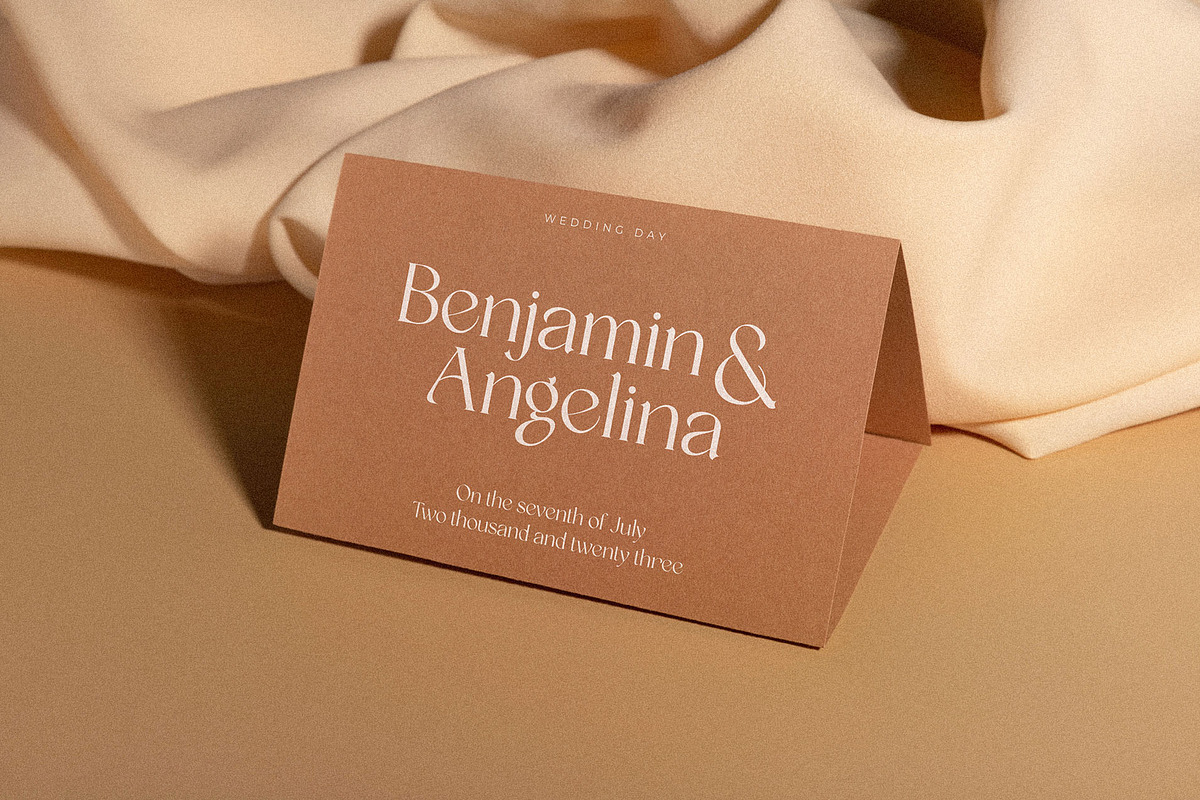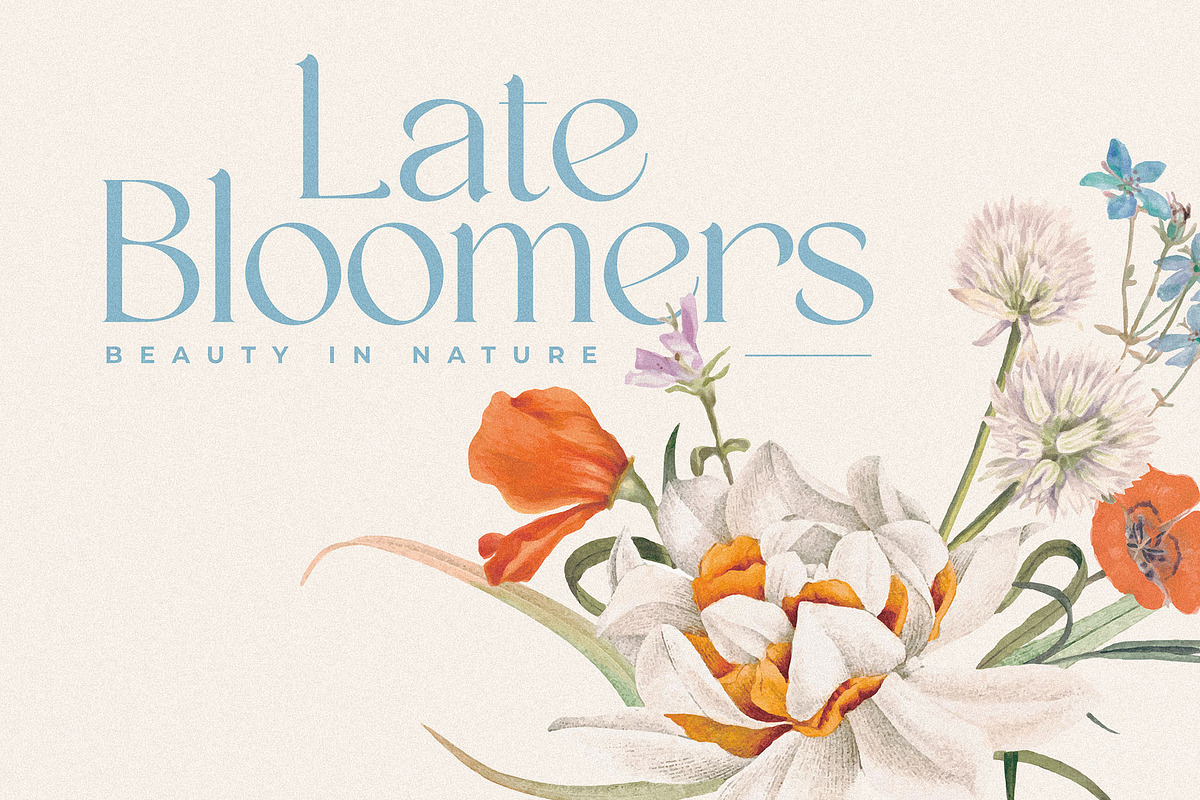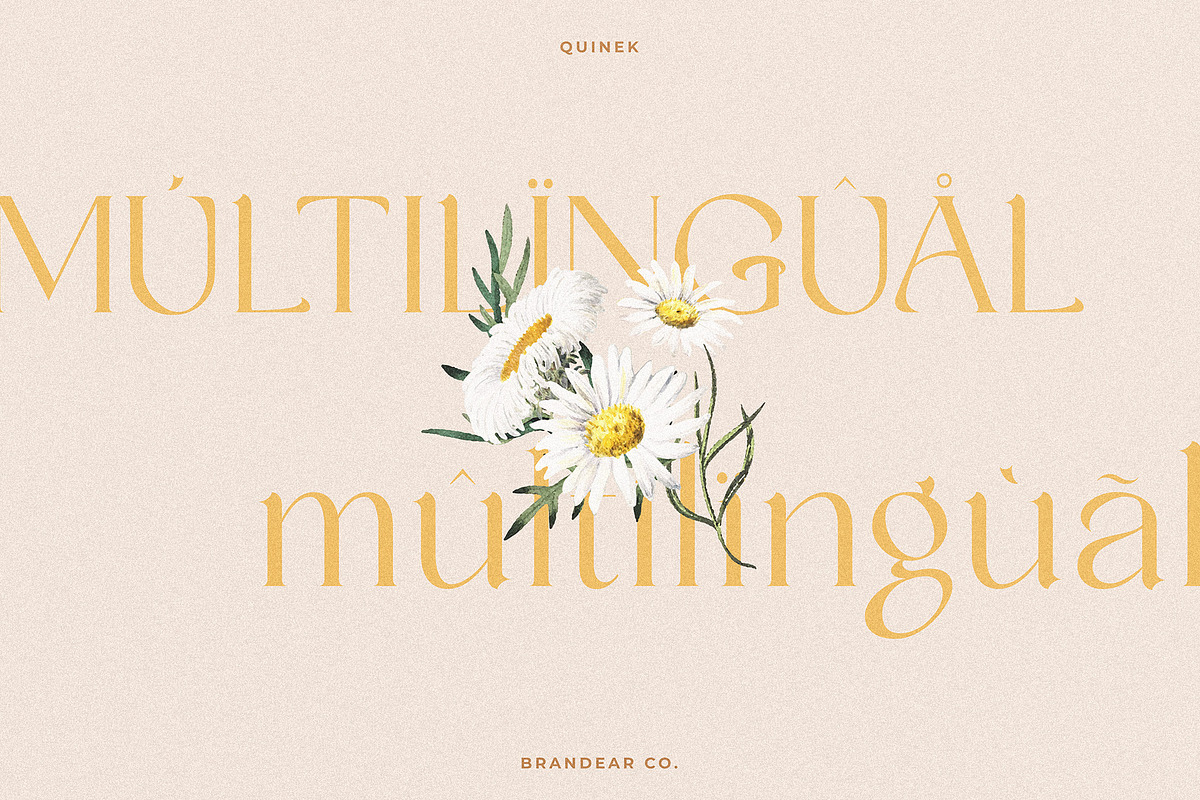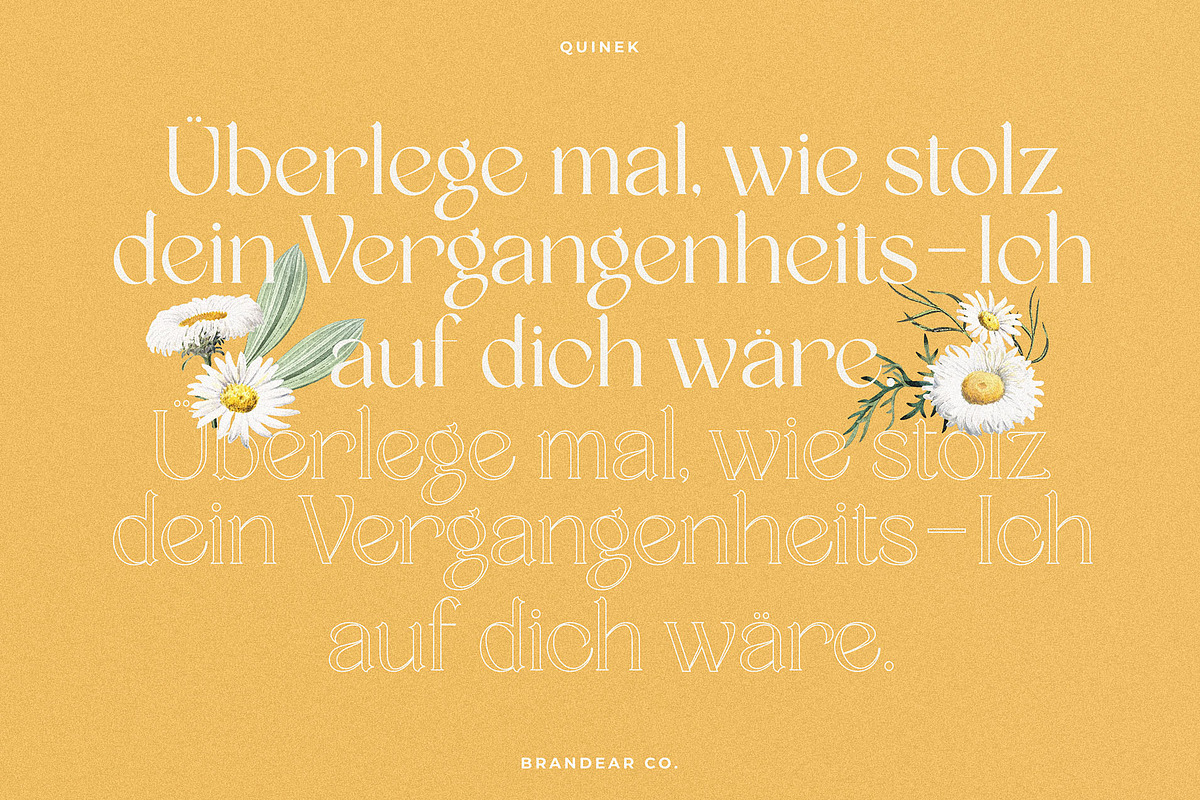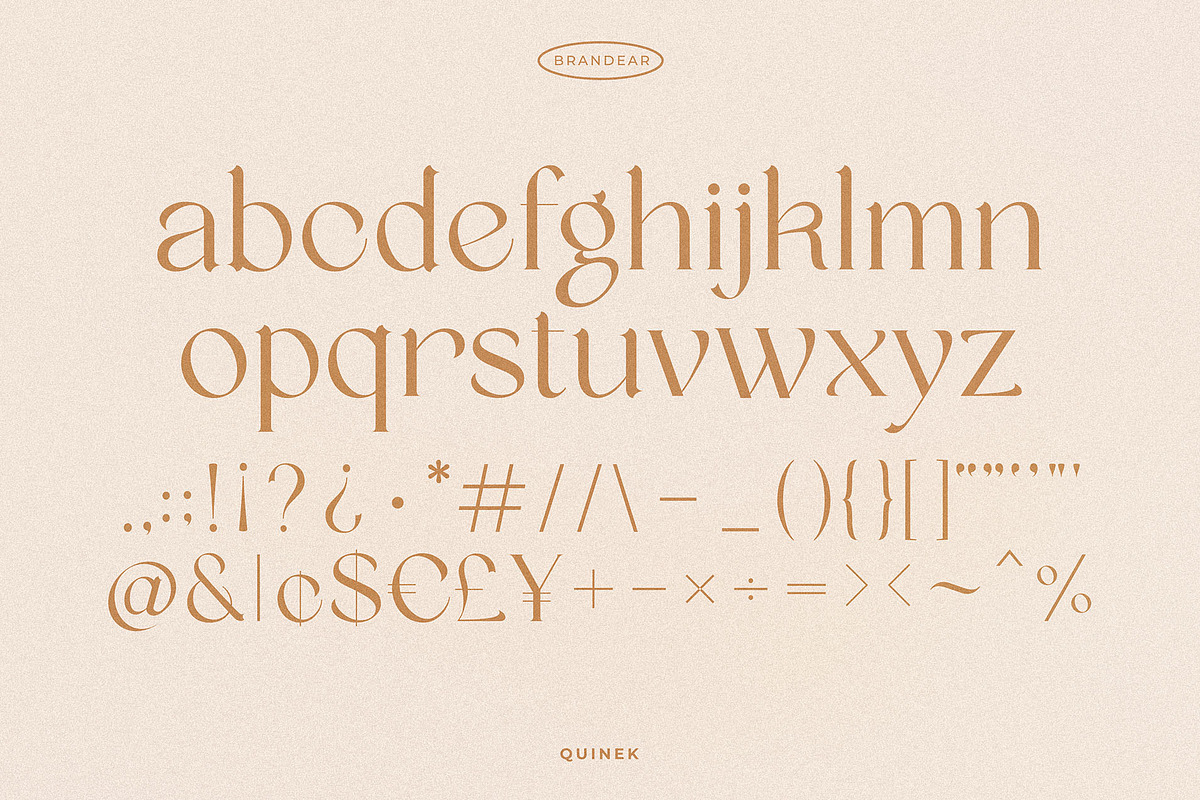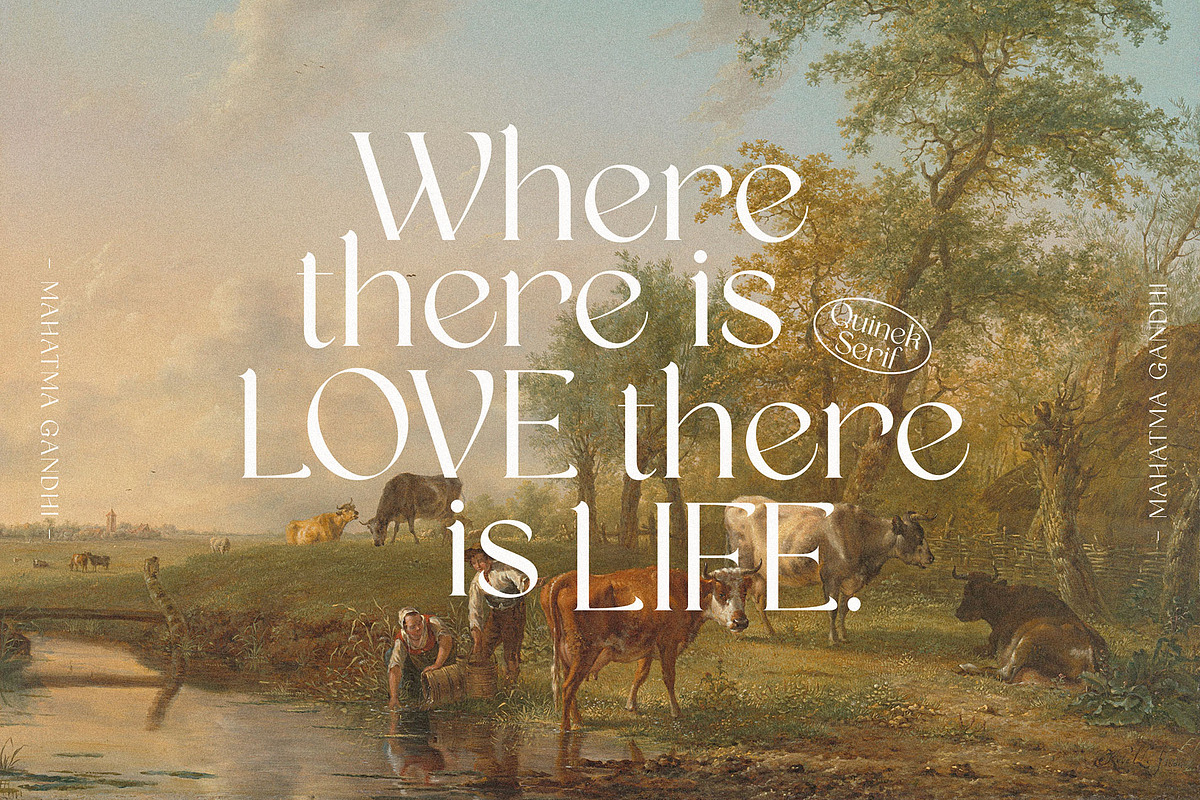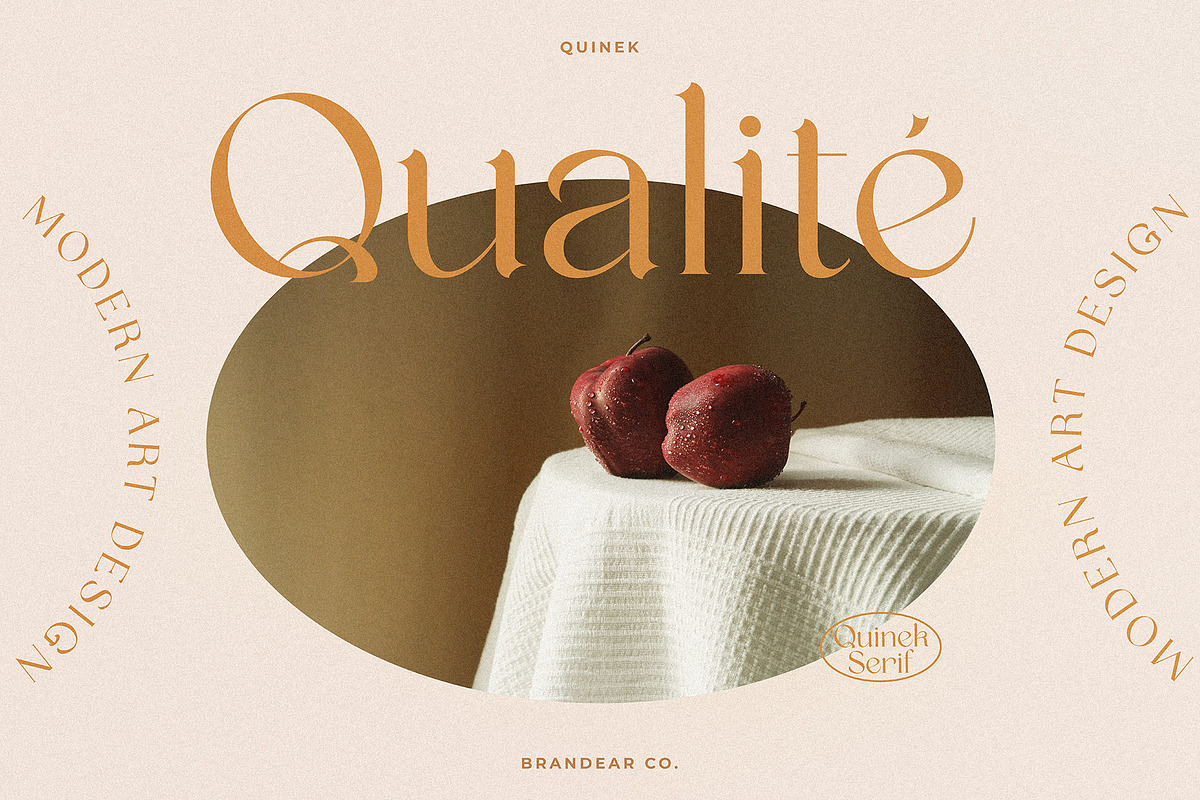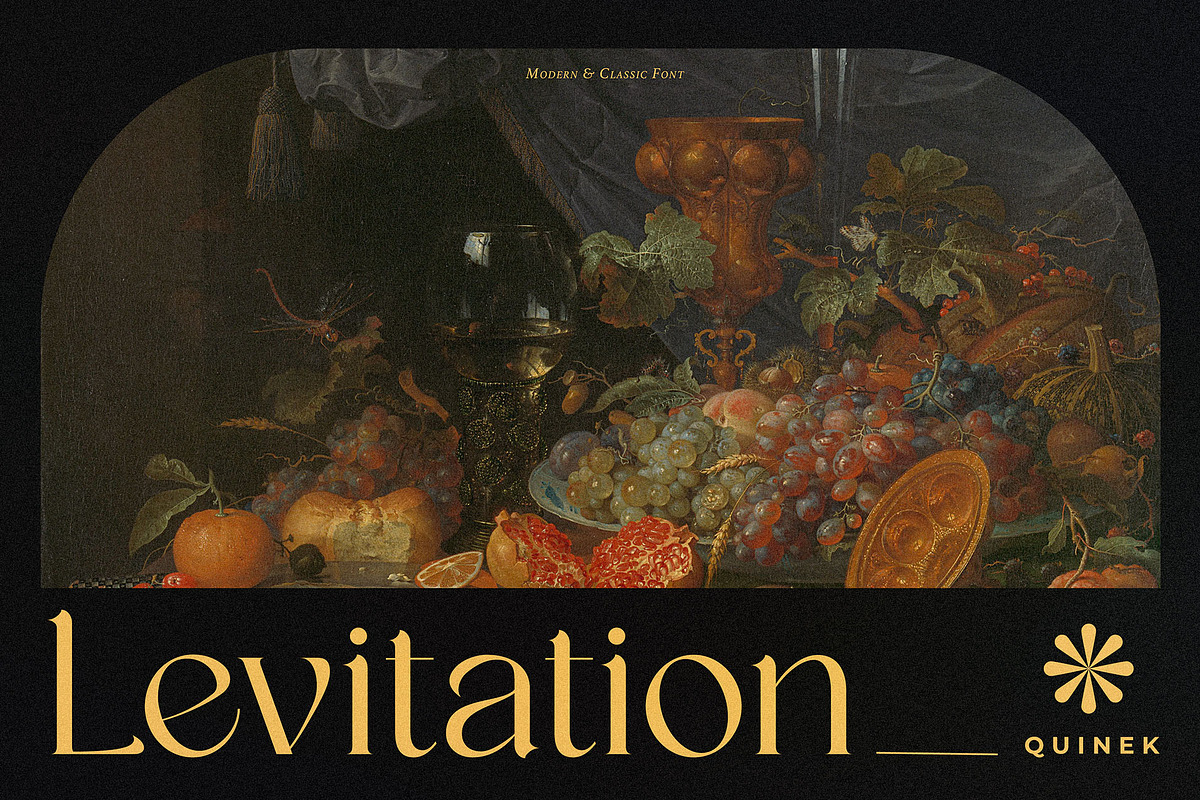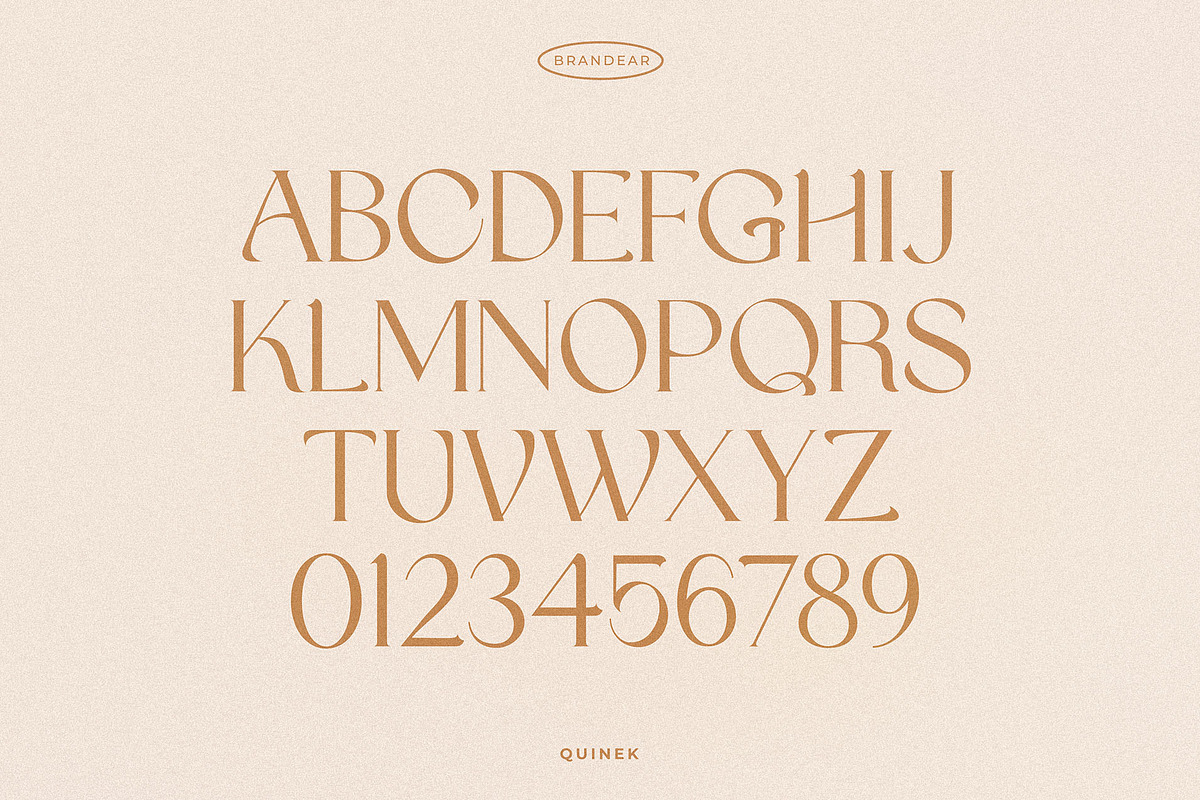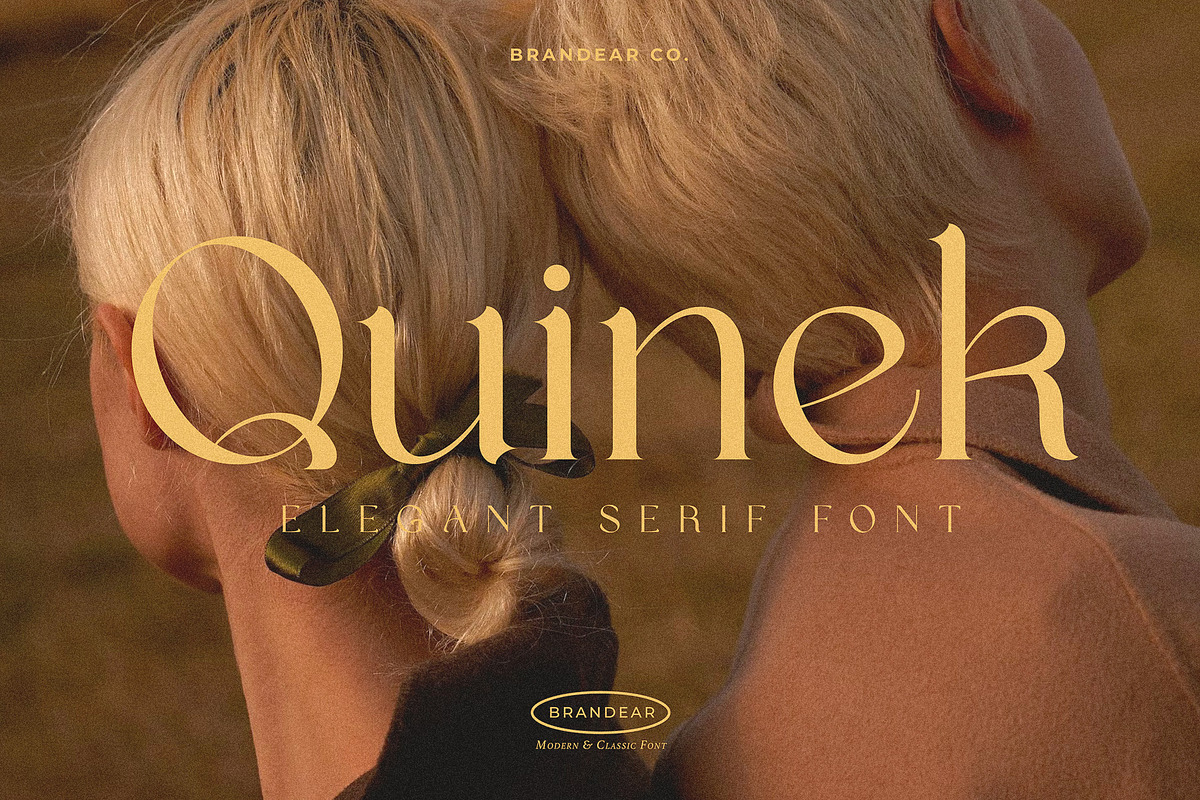
Quinek Elegant Serif
Quinek is a luxurious, artistic serif font. Specially designed for creating elegant, artistic and classic projects such as logos, editing, packaging, posters and more.